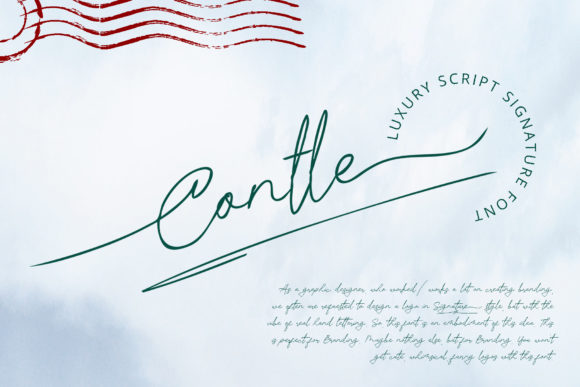
Behold the Contle Script, an Enchanting Font Symphony for Your Web Page Masterpiece
In a digital realm saturated with uniformity, where texts often lack the personal touch, the Contle Font emerges as a beacon of individuality and flair. Its meticulously crafted curves and graceful strokes transform words into works of art, captivating the reader's attention and leaving an enduring impression.
Indulge in the Contle Script's versatility, a font family that effortlessly adapts to a myriad of design aesthetics. From the delicate charm of wedding invitations to the sophisticated allure of business cards, from the heartfelt warmth of thank-you cards to the timeless elegance of logos, the Contle Script seamlessly blends with your creative vision, enhancing your message with an air of sophistication and charm.
With the Contle Script, your web page transcends the mundane and enters the realm of the extraordinary. Its innate ability to evoke emotions, inspire imaginations, and captivate audiences makes it the perfect choice for those seeking to make a lasting impact. Let the Contle Script weave its magic into your digital tapestry, transforming ordinary words into extraordinary expressions that resonate with your audience.
Born from the creative forge of anomali.bisu, the Contle Script is a testament to the power of human ingenuity. Each letter, meticulously crafted with love and precision, embodies the essence of artistry and innovation. Whether gracing the pages of a virtual brochure or adorning the pixels of a social media post, the Contle Script elevates your message, imbuing it with a touch of exclusivity and sophistication.
Immerse yourself in the Contle Script's enchanting embrace, and discover a world where typography transcends its functional purpose and becomes an art form. Embrace the boundless possibilities that await you, and let the Contle Script ignite your creativity, transforming your web page into a symphony of visual delight.